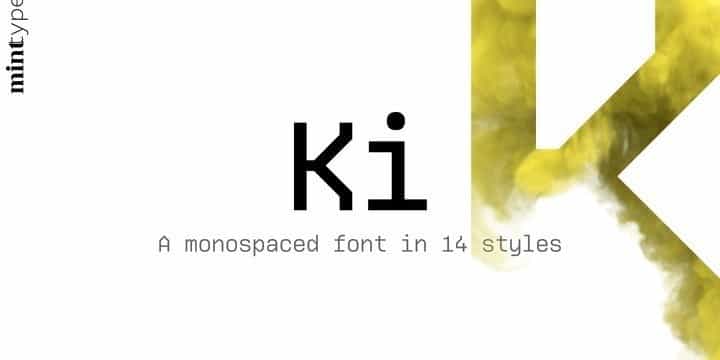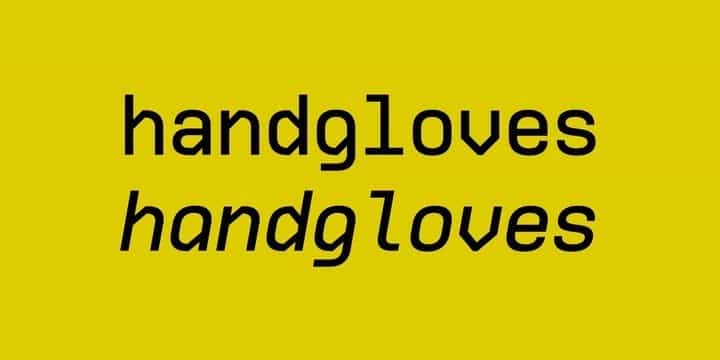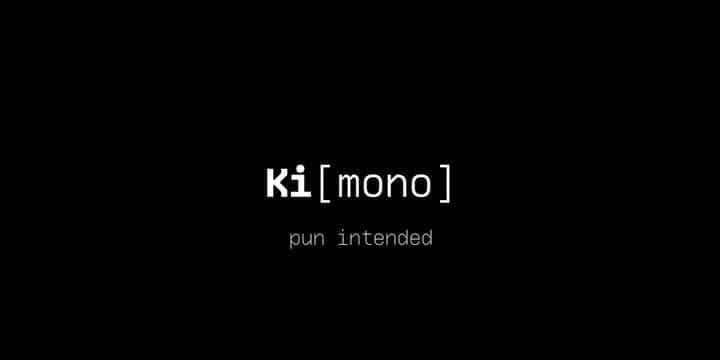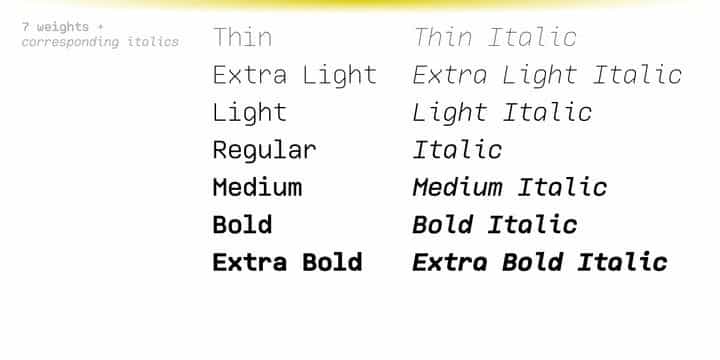
Ki is a humanist fonts, sans serif in form and inspiration but the carving technique used is of the ancient Chinese. Ki’s design is unique in that it suits all your modern needs of typography fundamental: Identifies the main characters, knows about sentence cases, punctuation marks should be filled in here.